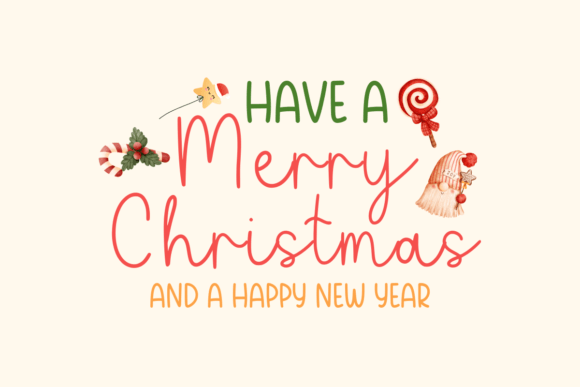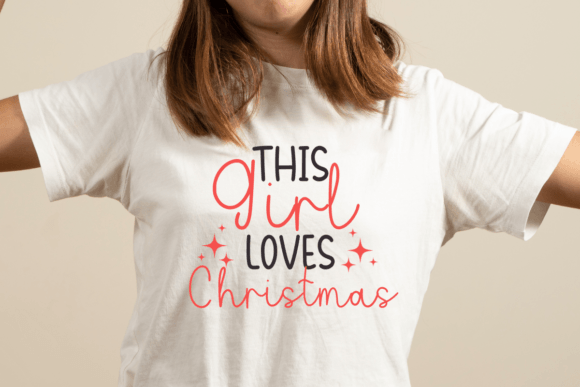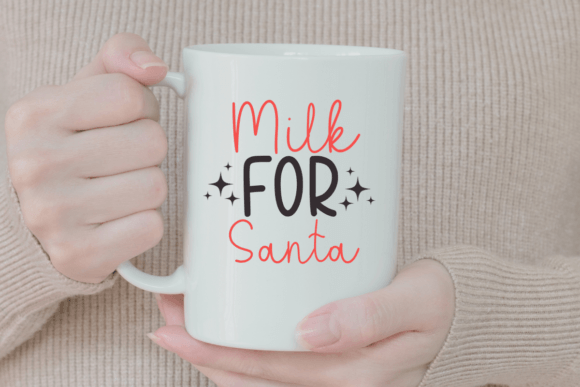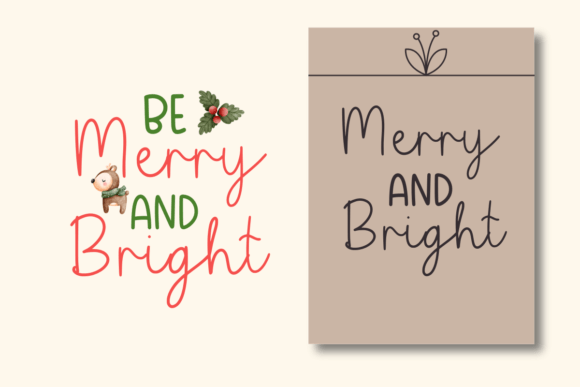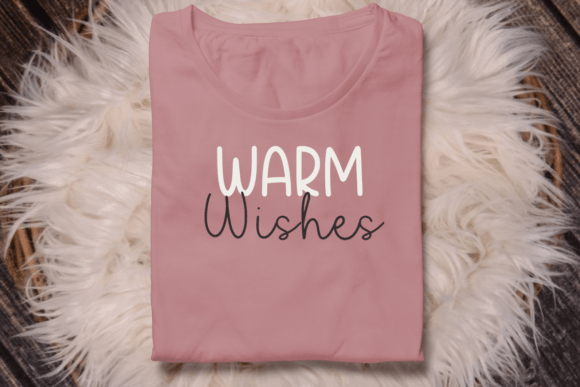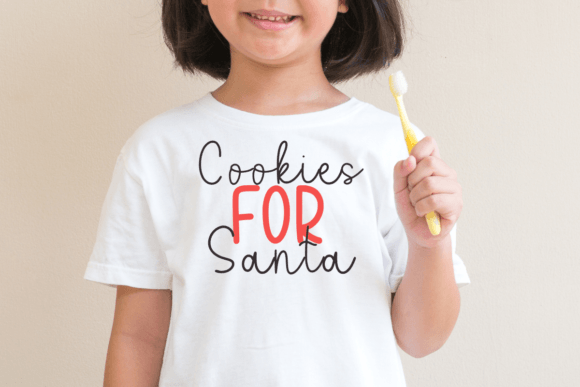
Introducing Farmhouse Christmas Font: A Charming Handwritten Font Duo for Your Holiday Designs
Are you looking for a font that captures the essence of a rustic, cozy Christmas? Look no further than Farmhouse Christmas Font, a delightful handwritten font duo that’s perfect for adding a touch of whimsy to your holiday designs. This charming font combination includes a handwritten script and a monoline font, making it incredibly versatile and suitable for a wide range of projects.
What Makes Farmhouse Christmas Font So Special?
Farmhouse Christmas Font is a carefully crafted font duo that exudes a warm, homespun feel. The handwritten script font features flowing, connected letters with a subtle imperfections that give it a personal, hand-crafted look. The monoline font, on the other hand, offers a clean and simple aesthetic that’s perfect for creating a striking contrast with the script font.
Together, these two fonts form a match made in heaven, allowing you to create stunning designs that are sure to capture the spirit of the holiday season. Whether you’re designing quotes, t-shirts, tote bags, greeting cards, mugs, or any other type of project, Farmhouse Christmas Font is the perfect choice.
Key Features of Farmhouse Christmas Font
- Handwritten script font: With its flowing, connected letters and subtle imperfections, this font is perfect for adding a personal touch to your designs.
- Monoline font: This clean and simple font is ideal for creating a striking contrast with the script font and adding a touch of modernity to your designs.
- Versatile: Farmhouse Christmas Font is suitable for a wide range of projects, from quotes and t-shirts to greeting cards and mugs.
- Easy to use: This font duo is incredibly easy to use, making it perfect for designers and crafters of all skill levels.
Farmhouse Christmas Font is a dream come true for designers and crafters who love creating holiday-themed projects. Whether you’re a professional designer or a hobbyist, this font duo offers endless possibilities for creative expression.
Use Farmhouse Christmas Font to create:
- Festive quotes and posters for social media or your website
- Custom t-shirts, tote bags, and other apparel for the holiday season
- Beautiful greeting cards and invitations for friends and family
- Unique mugs, water bottles, and other home decor items
- Stunning holiday-themed wall art and decor for your home or office
Why Choose Farmhouse Christmas Font?
With so many fonts to choose from, why should you choose Farmhouse Christmas Font? Here are just a few reasons:
- Unique and eye-catching: This font duo offers a fresh and unique take on traditional holiday fonts, making it perfect for designers and crafters who want to stand out from the crowd.
- High-quality: Farmhouse Christmas Font is a high-quality font duo that’s been carefully crafted to ensure that it looks great in any design.
- Easy to use: This font duo is incredibly easy to use, making it perfect for designers and crafters of all skill levels.
Farmhouse Christmas Font is a charming handwritten font duo that’s perfect for adding a touch of whimsy to your holiday designs. With its unique and eye-catching design, high-quality craftsmanship, and ease of use, this font duo is a must-have for designers and crafters who love creating holiday-themed projects.